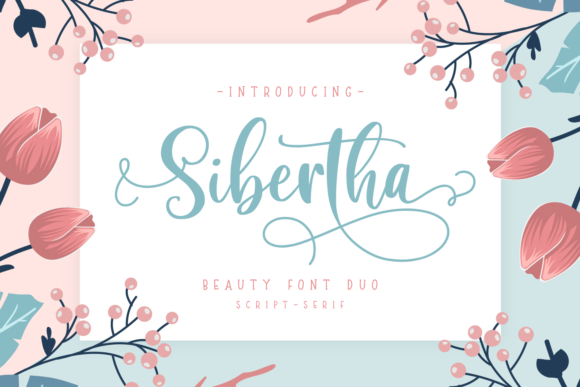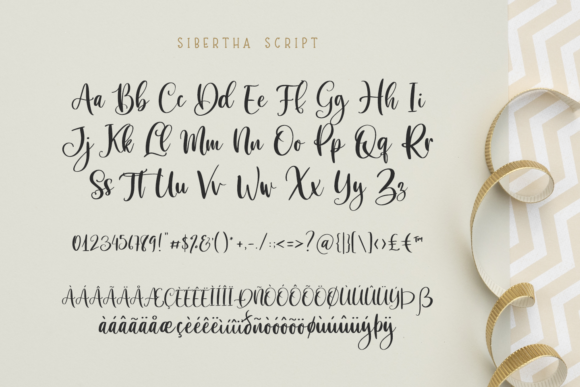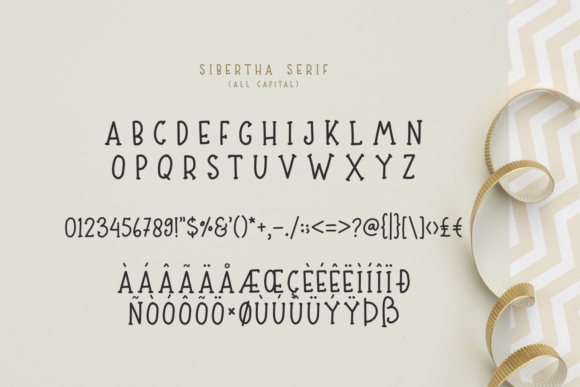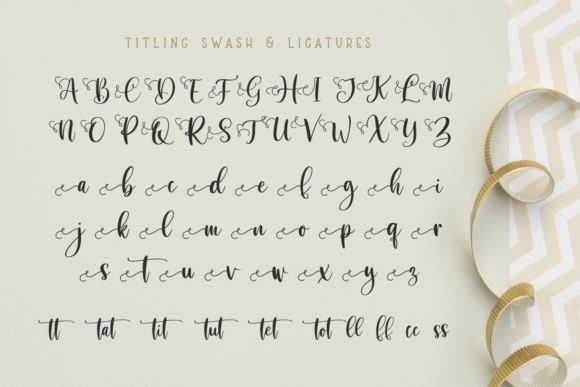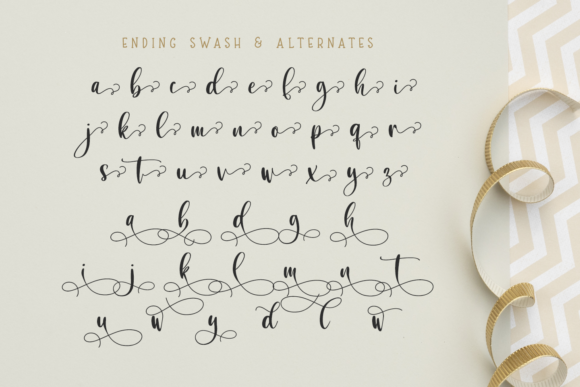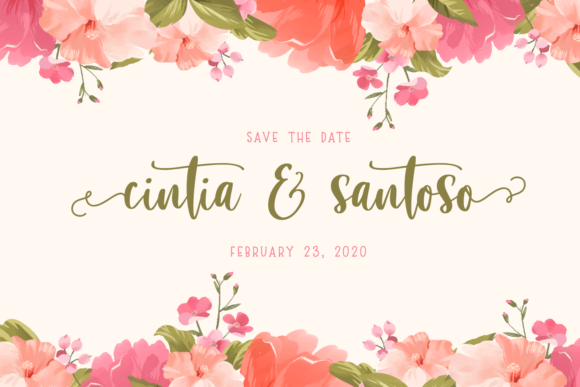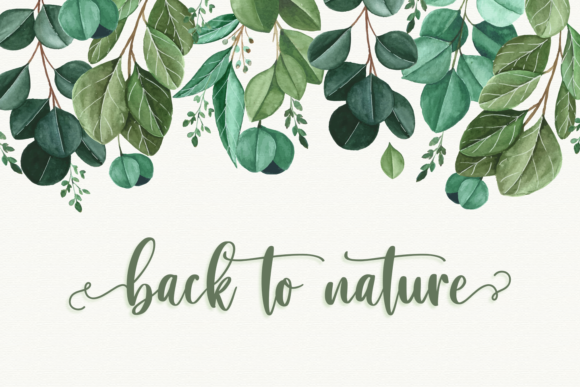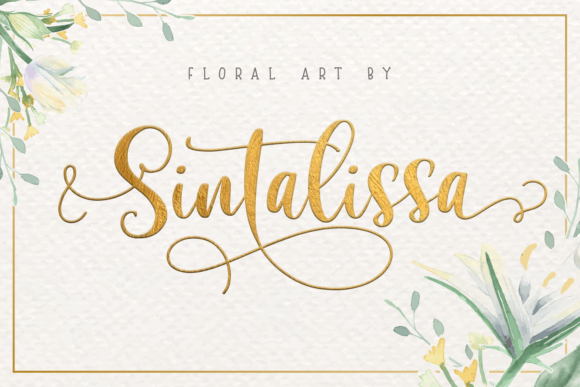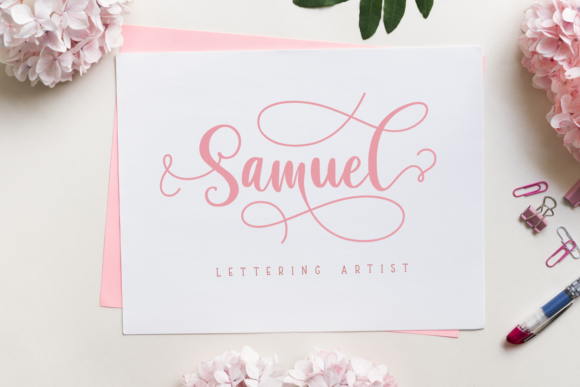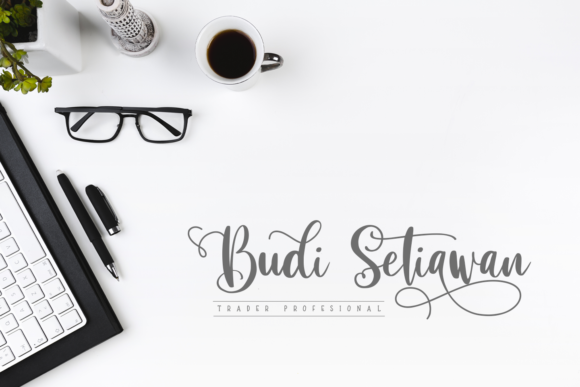
Sibertha Font
About Sibertha Font
Sibertha is a gorgeous font duo full of charm. It brings together a fun script and an elegant serif font that will elevate any crafting project to the highest level. Fall in love with this match made in heaven!